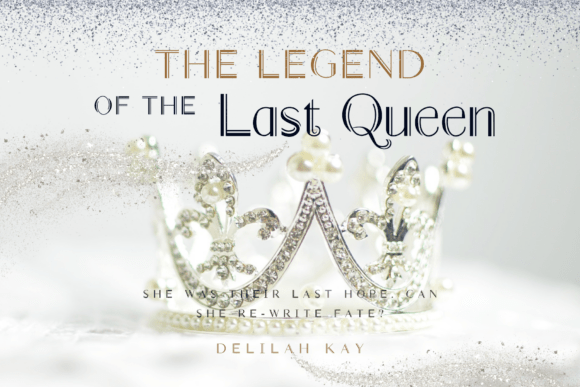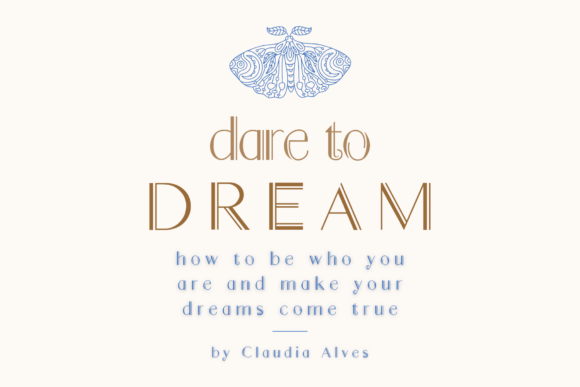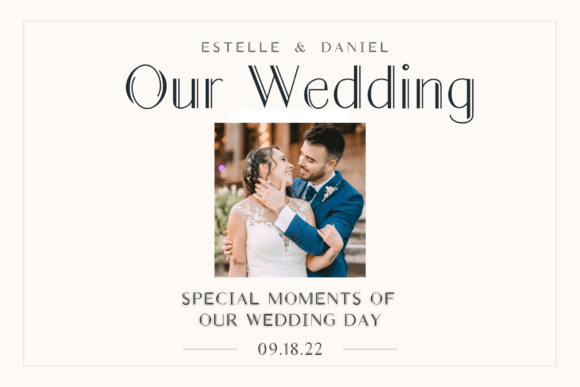
Introduction to Queen Orders Font
QUEEN ORDERS This font was created for International Mother’s Day.
The author’s font, the EMERALD, was modified to make the overlapping lines thicker, resulting in a unique and beautiful font that is appropriate for every mother who must always be strong, profound, and beautiful in the eyes of her children .
Why Choose Queen Orders Font?
Queen Orders Font offers exceptional quality and versatility, making it a valuable addition to your design toolkit. Whether you’re creating for personal projects or commercial use, Queen Orders Font delivers professional results.